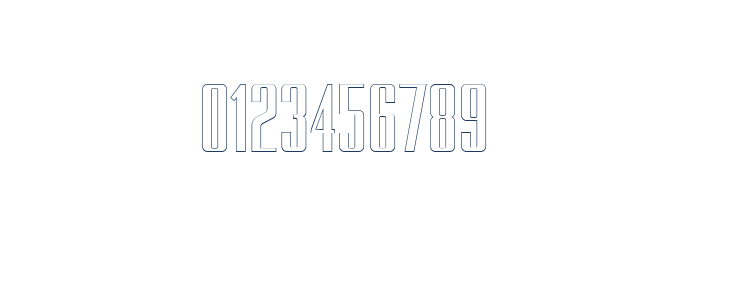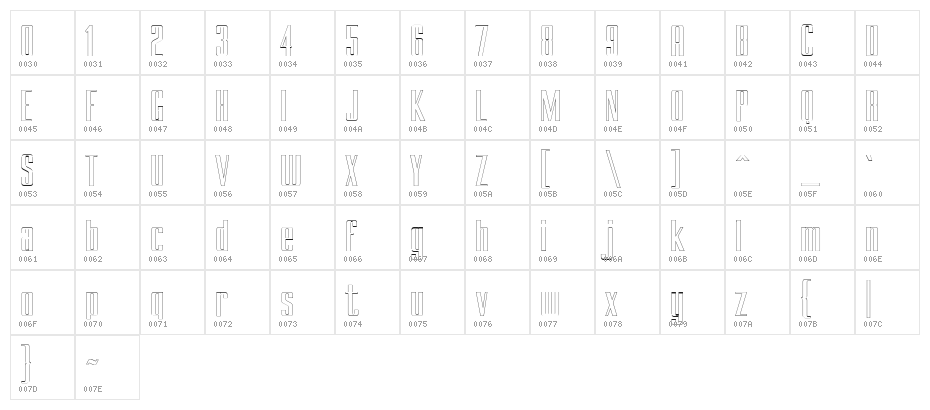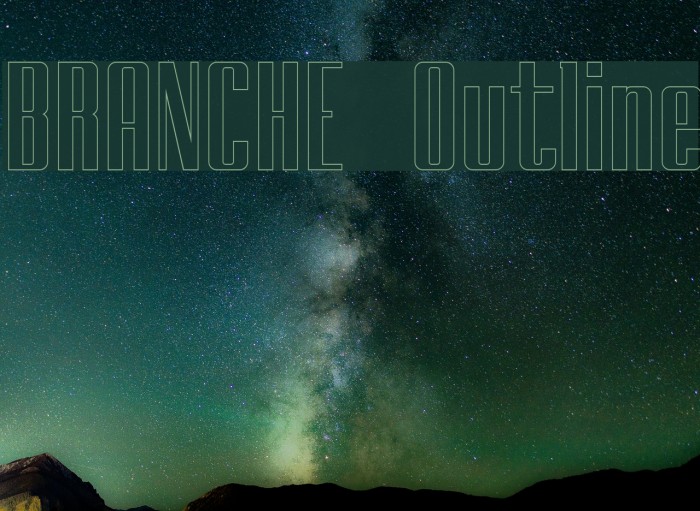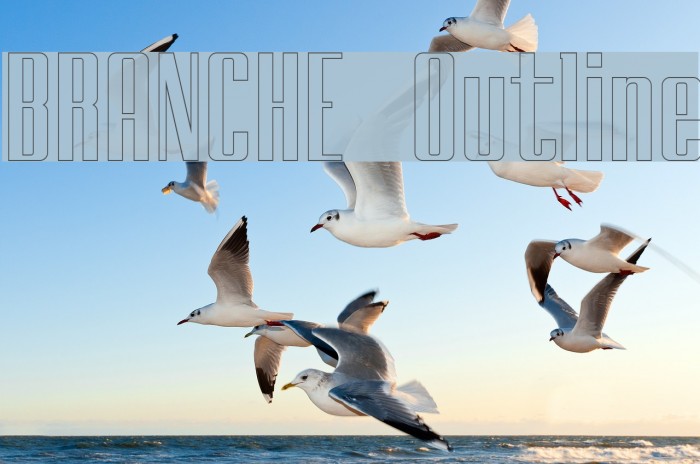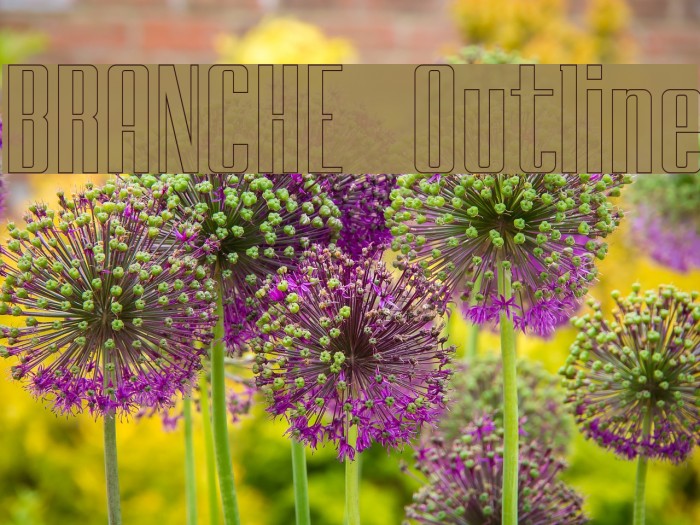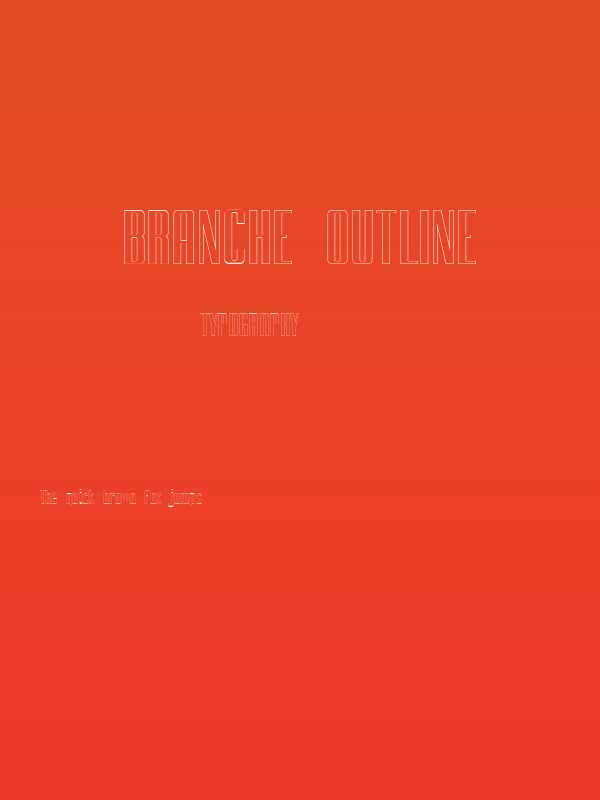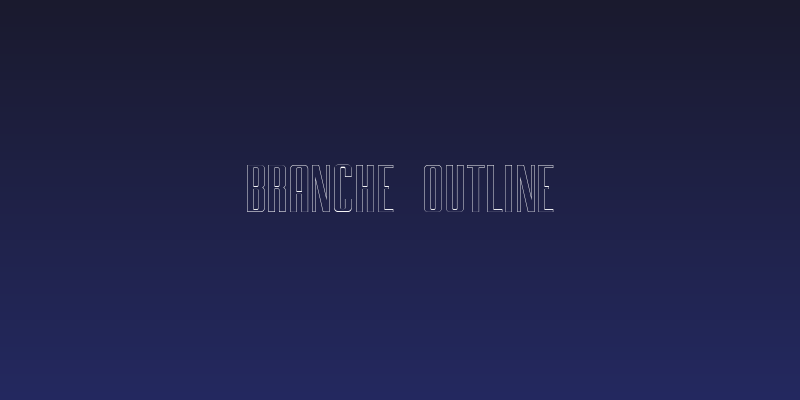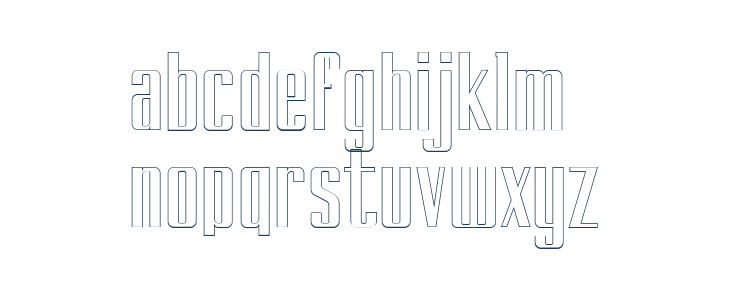
BRANCHE Outline Font
BRANCHE Outline Description
This font features a modern and sleek outline style, characterized by its tall, narrow letterforms with consistent stroke widths. The uppercase and lowercase letters maintain a uniform height, creating a cohesive and structured appearance. The geometric design is accentuated by sharp angles and clean lines, giving it a contemporary and minimalist feel. The numerals and special characters follow the same design principles, ensuring a harmonious look across all characters. This font's outline nature makes it ideal for overlaying on images or backgrounds, allowing the underlying content to show through while still maintaining legibility.
| Proposed Projects | Ideal for modern branding, posters, digital media, and overlay designs where a sleek, transparent effect is desired. |